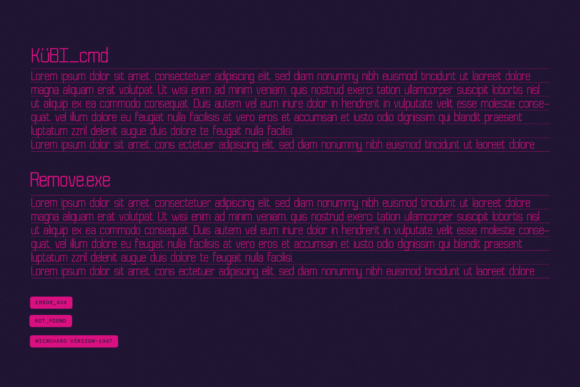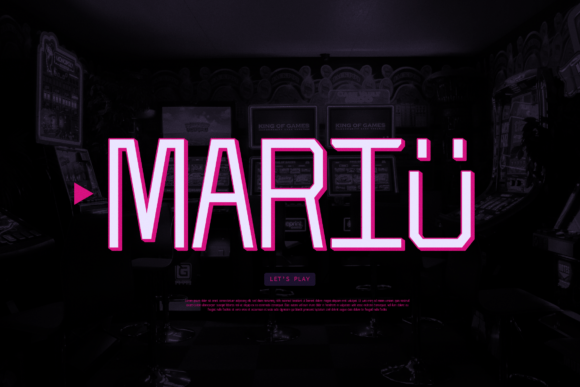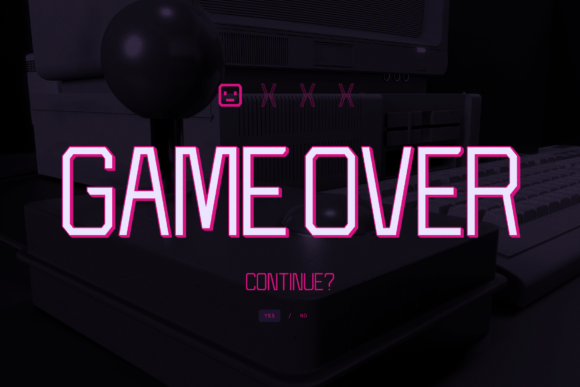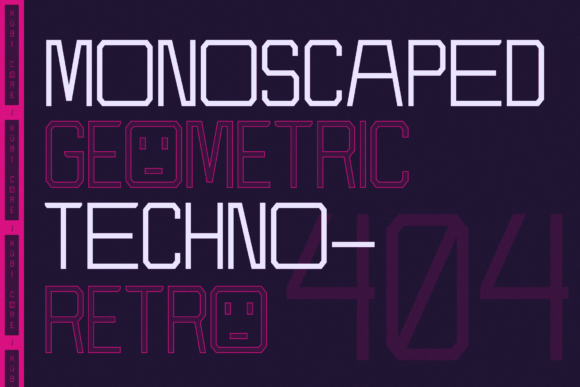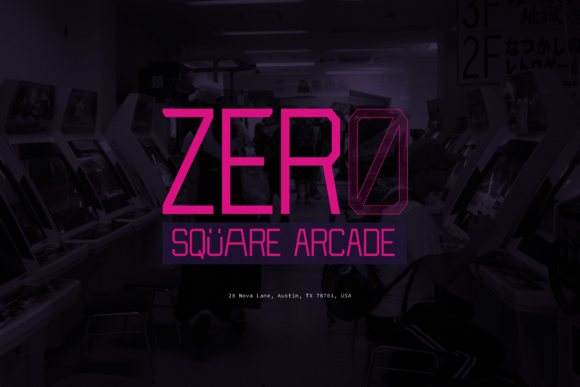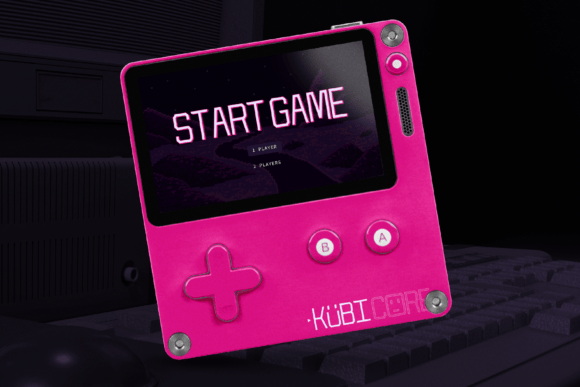
Introduction to Kubicore Font
KubiCore is a striking techno-retro display font that merges futuristic design with nostalgic charm.
Its geometric, monospaced characters evoke the aesthetics of 80s digital technology and vintage computer graphics Ideal for sci-fi titles, tech branding, coding-themed posters, and gaming visuals, KubiCore brings a distinctive edge to any design.